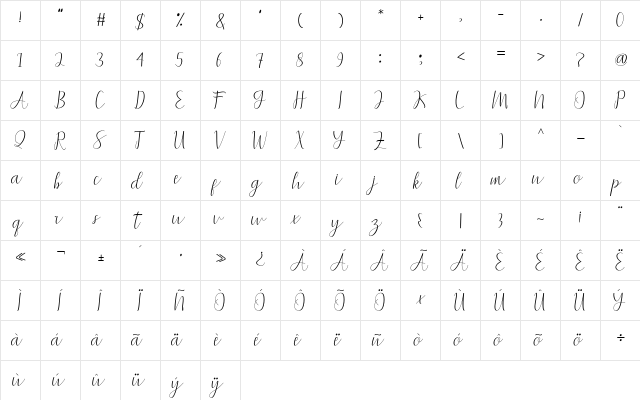
bahira script Regular
Design Context for bahira script Typeface
bahira script flows with the natural rhythm of handwritten lettering, making it ideal for designs that call for warmth and personal expression.
Font Pairing: Combine bahira script with a simple geometric sans for maximum contrast — the tension between flowing curves and clean structure is a classic typographic pairing.
Pro Tip: Use bahira script for short runs of text — names, titles, or taglines. Extended body copy in script faces tires the eye quickly.